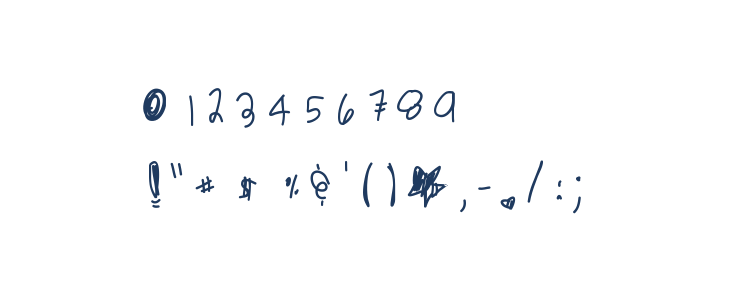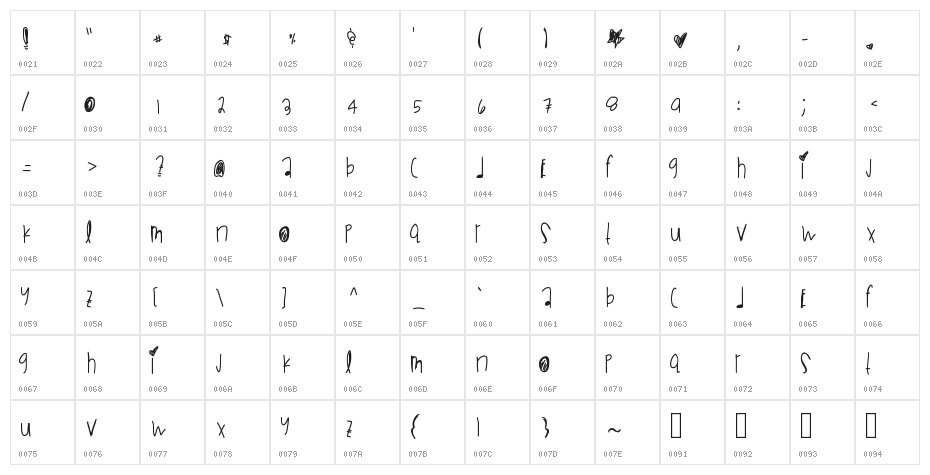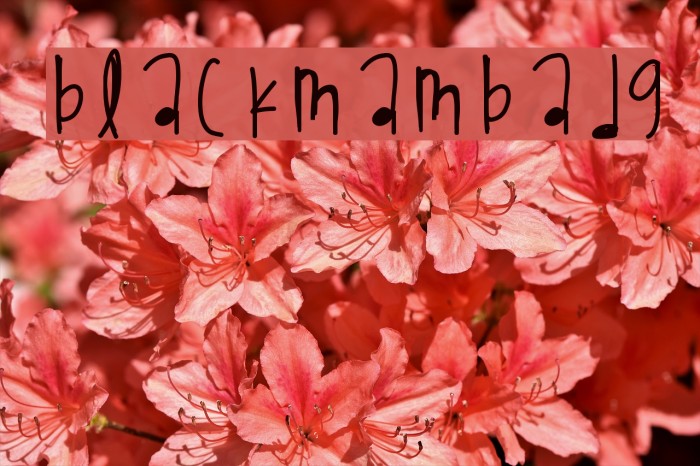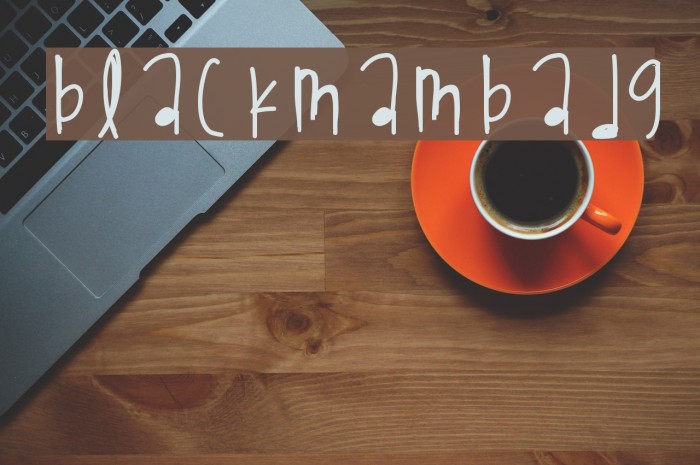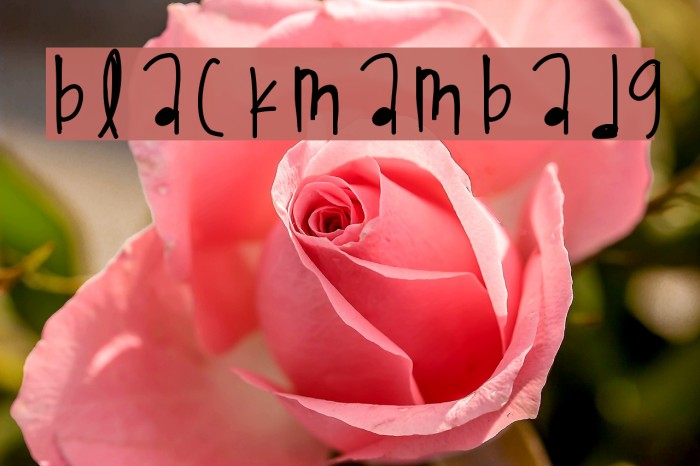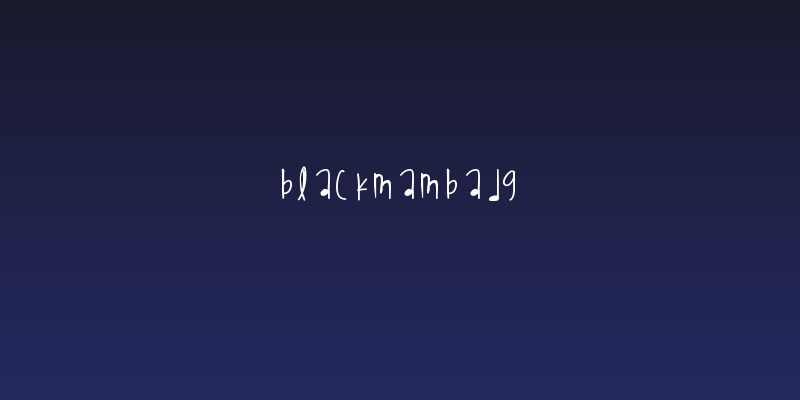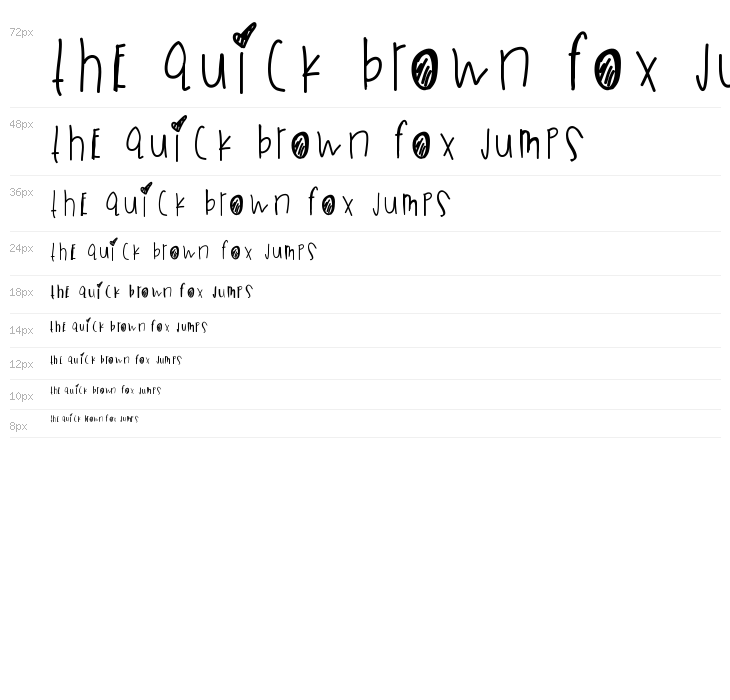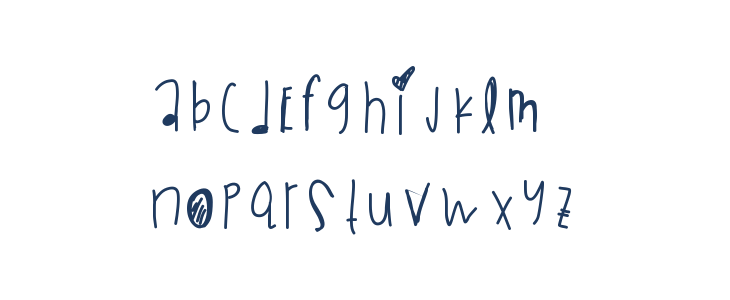
BlackMambaDg Font
BlackMambaDg Description
This playful and whimsical font features a handwritten style with a unique and quirky character design. Each letter exhibits a distinct personality, with some incorporating playful elements like hearts and dots. The strokes are uneven and organic, giving it a casual and artistic feel. The font includes both uppercase and lowercase letters, numbers, and a variety of special characters. Its irregular shapes and playful embellishments make it stand out, offering a creative and informal vibe.
| Proposed Projects | Ideal for children's books, creative posters, greeting cards, and playful branding projects. |